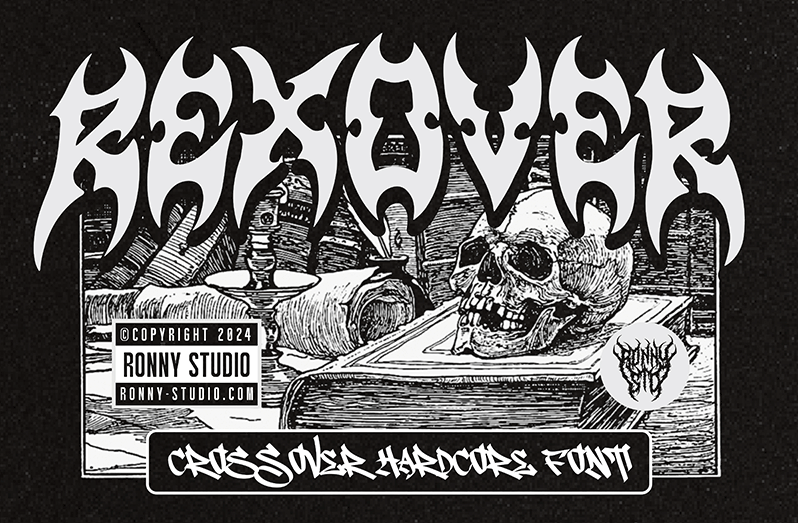
Rexover Font is perfect for commanding corporate branding, dominant market leader communications, powerful executive presentations, authoritative business materials, supreme luxury packaging, imperial brand identities, conquering campaign designs, regal product promotions, majestic event signage, and overwhelmingly powerful marketing communications.
Rexover Font is exciting because it embodies the supreme authority and commanding presence of market dominance with its powerfully structured letterforms that reign over visual landscapes with the unquestionable confidence of industry leaders and radiate the imperial strength that separates true rulers from mere competitors. Its majestically dominant character design reflects both the strategic intelligence required for market conquest and the unwavering determination that builds business empires, making it perfect for brands seeking to establish absolute market supremacy and regal authority.
Rexover Font family includes light, regular, medium, bold, and black weights, each with corresponding italic versions. The font family also features imperial ornaments, commanding ligatures, dominant symbols, and regal decorative elements that enhance its powerful aesthetic and supremacy-focused versatility.
This supremely commanding typeface represents the perfect fusion of imperial authority and business dominance. Rexover Font Free Download allows designers to experience its ruling potential before making a commercial commitment. The font's ability to convey both executive power and market supremacy makes it ideal for corporate leaders, luxury brands, and dominant companies targeting audiences seeking authoritative leadership and supreme quality experiences.
Whether you're developing executive brand identities, creating market dominance materials, or designing authority-focused communications, Rexover Font brings an unmistakable sense of commanding power and imperial supremacy to every project. Its dominant character and ruling heritage create powerful connections that establish immediate authority and command respect from audiences seeking market-leading excellence.
The font's versatility excels in corporate and luxury environments where dominance and supreme authority are essential. Its commanding character makes it particularly effective for Fortune 500 companies, luxury brands, executive services, and market leaders seeking to establish imperial relationships with high-level decision makers and audiences demanding supreme quality and authoritative leadership.
For designers working on projects requiring genuine market dominance and imperial appeal, Rexover Font provides an exceptional solution. Its supremely commanding presence and comprehensive authority-themed elements offer the tools needed for creating truly dominant communications, while its regal power ensures your designs capture the unwavering strength and imperial authority that defines absolute market supremacy and executive excellence.